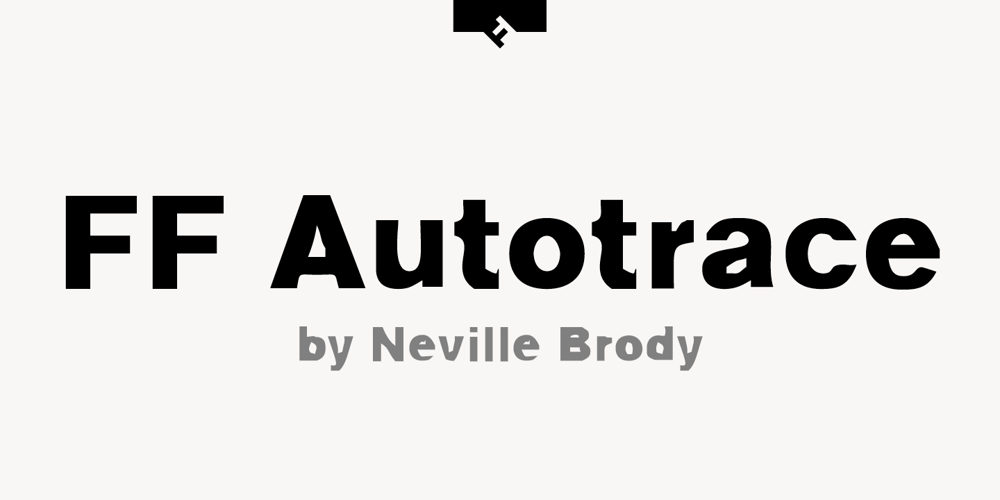
FF Autotrace Font Family was designed by Neville Brody and published by FontFont. FF Autotrace contains 5 styles and family package options. British type designer Neville Brody created this display FontFont in 1994. The family has 5 weights, and is ideally suited for music and nightlife and poster and billboards. FF Autotrace provides advanced typographical support with features such as ligatures and case-sensitive forms. It comes with tabular lining figures.